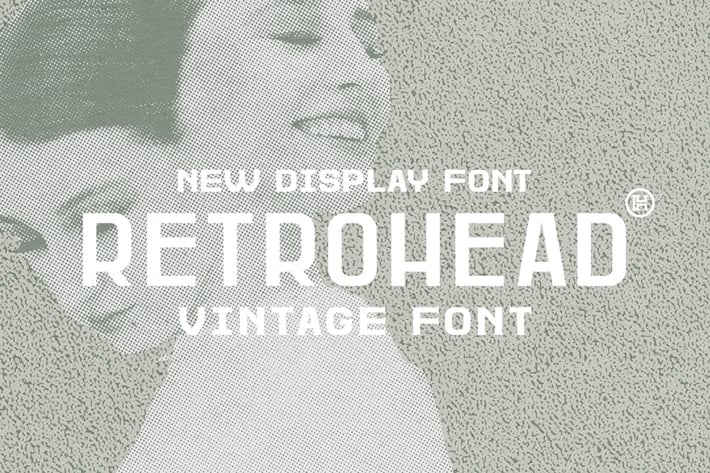
Retrohead Typeface|Vintage Font
Introducing RETROHEAD, a robust typeface with a vintage touch. With it's unique and distinct retro characteristics it sets itself apart, while also maintaining a strong timeless appeal overall.
RETROHEAD includes two styles, Retrohead and Retrohead Serif, a number of 252 glyphs for each style and extensive language support (latin).
This versatile font is the perfect tool for industrial logo designs, headers but also for small and block text.
*Uppercase and lower uppercase font